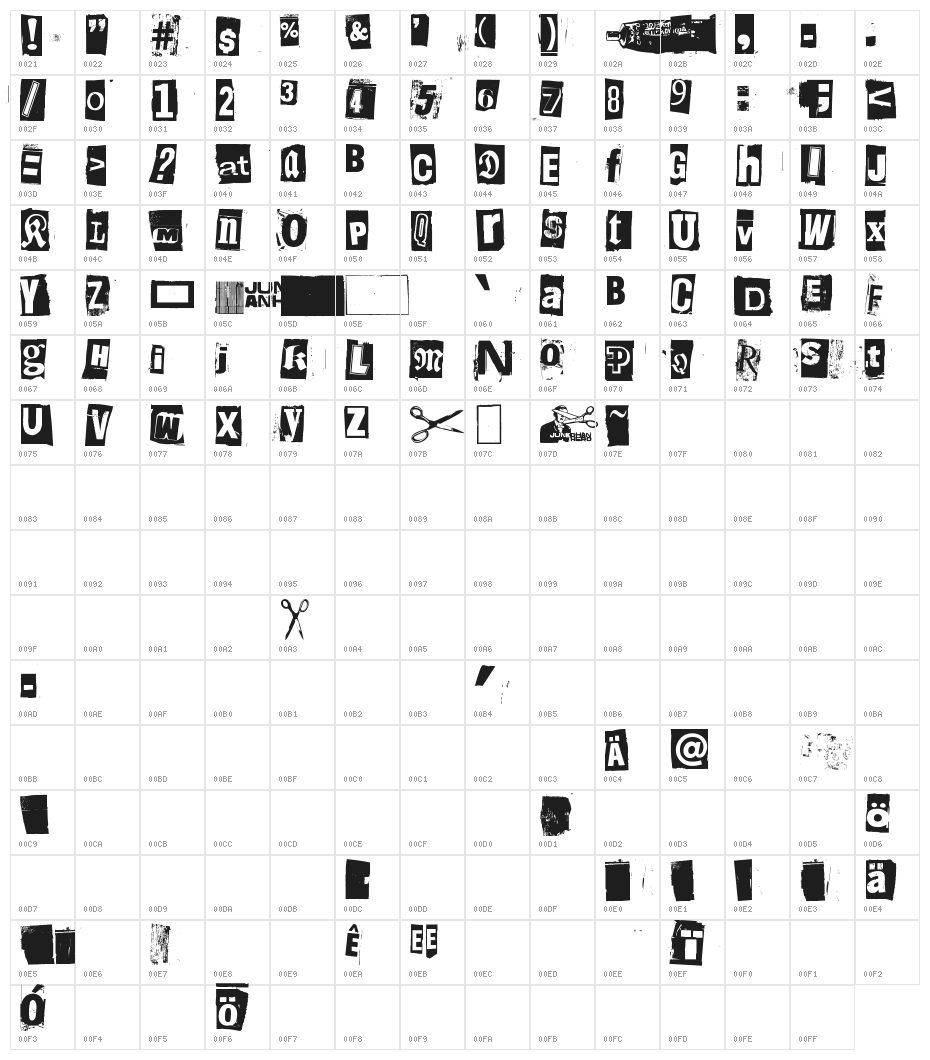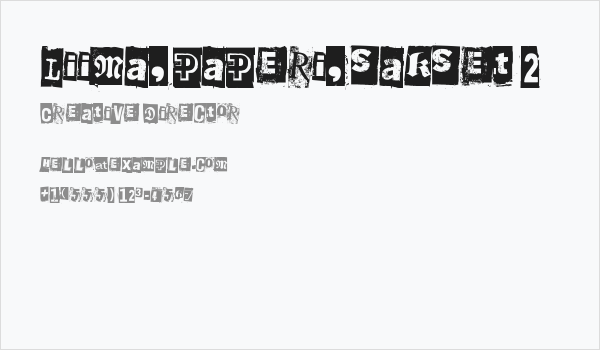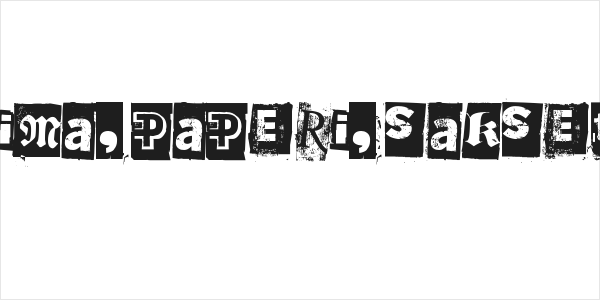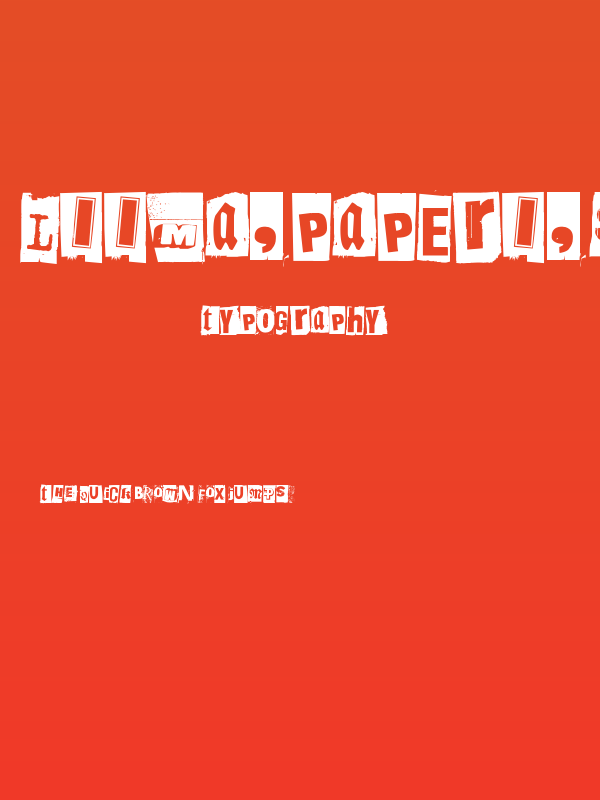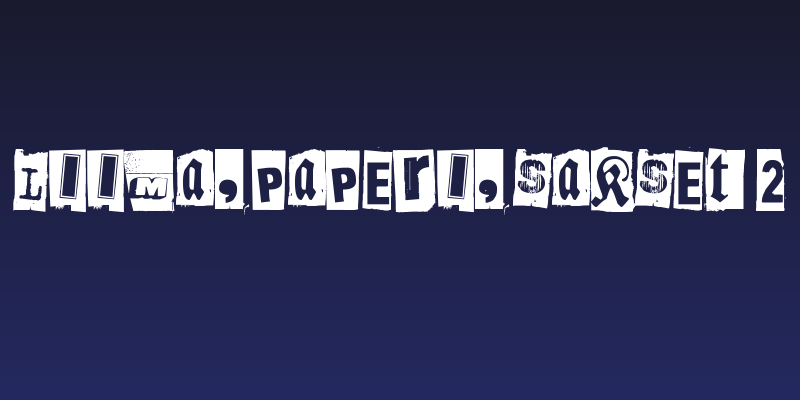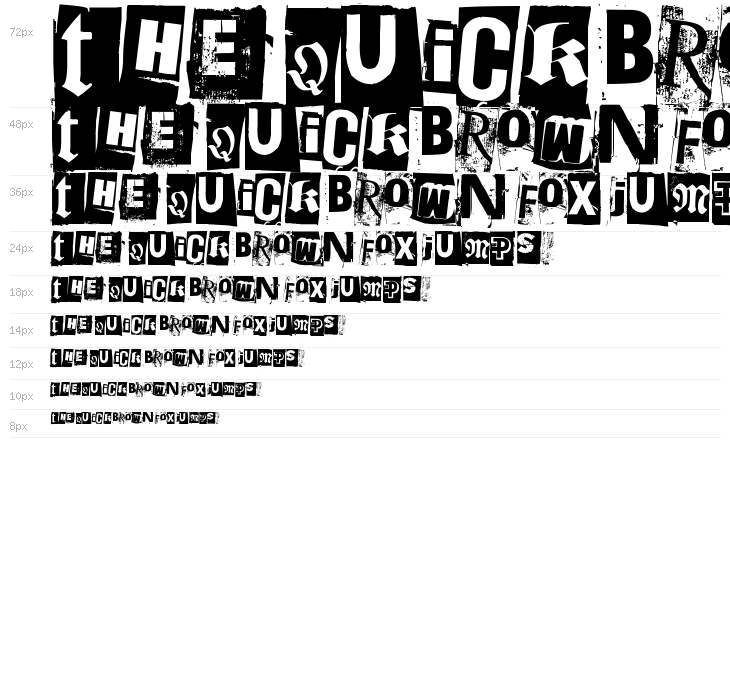
Liima, paperi, sakset 2 Font
Liima, paperi, sakset 2 Description
This font features a unique, eclectic style reminiscent of cut-out letters from magazines or newspapers. Each character is distinct, with varying shapes and sizes, creating a collage-like appearance. The letters are bold and have a rough, textured look, adding to the handmade, DIY aesthetic. The font includes both uppercase and lowercase letters, numbers, and a variety of special characters. Its irregular and playful design makes it stand out, perfect for projects that require a quirky and unconventional touch.
| Overall Style | Decorative, Eclectic |
| Use Case | Headlines, Artistic projects, Posters |
| Proposed Projects | Ideal for creative projects such as posters, album covers, zines, and any design work that benefits from a playful, handmade look. |